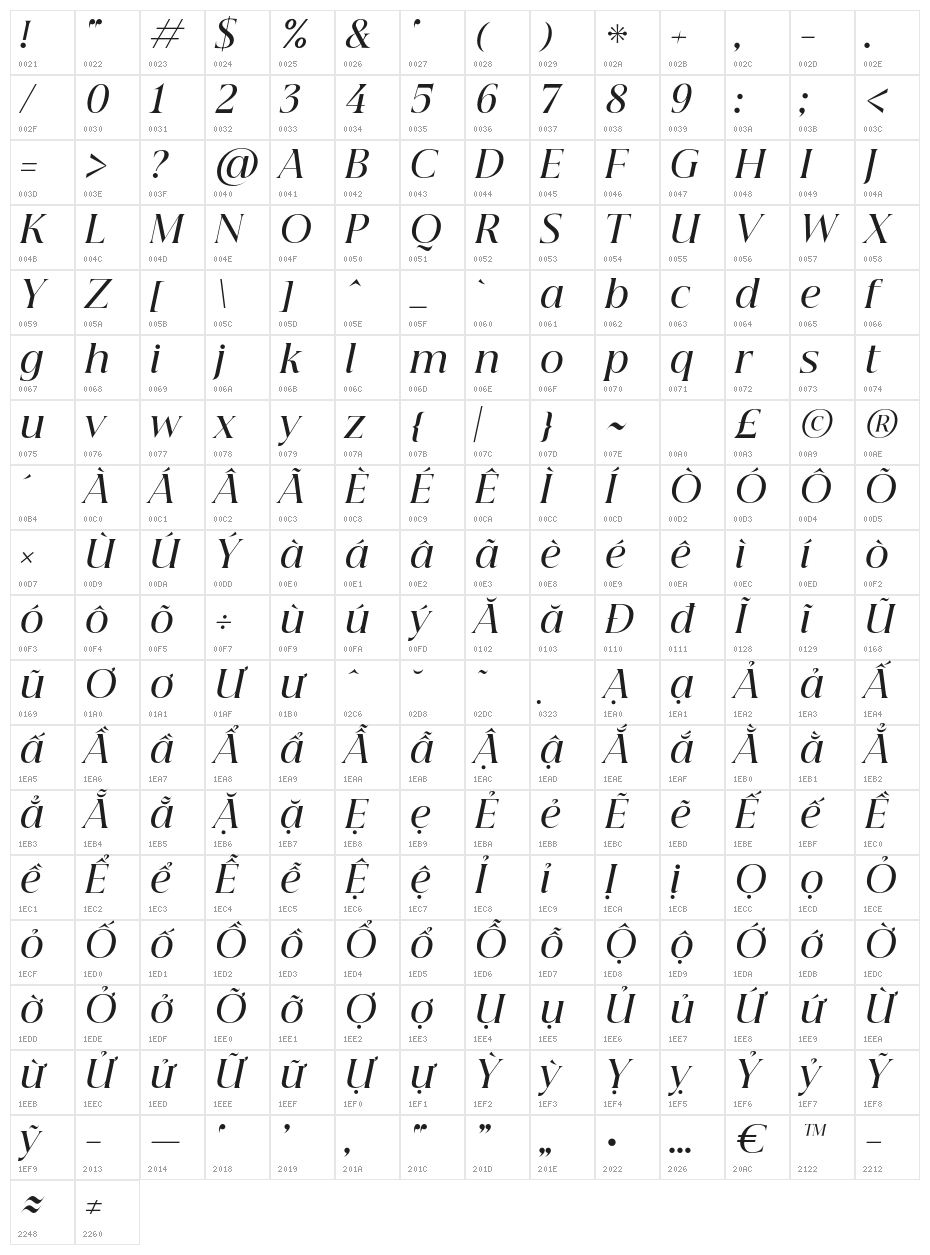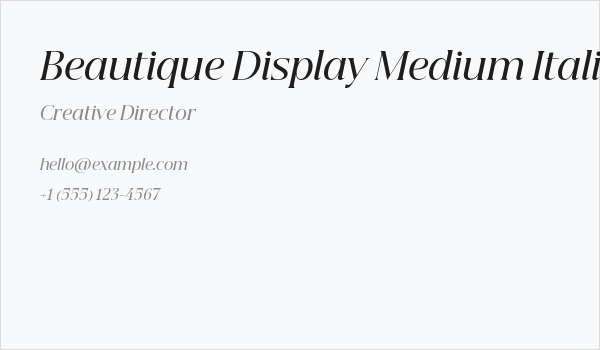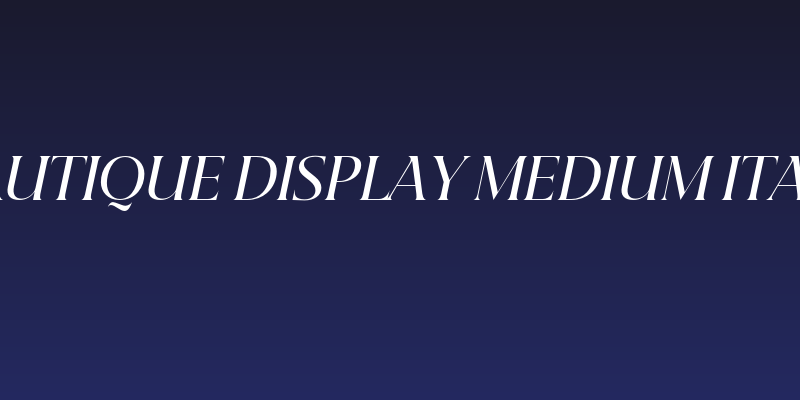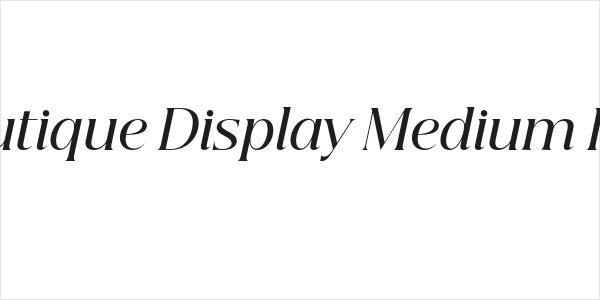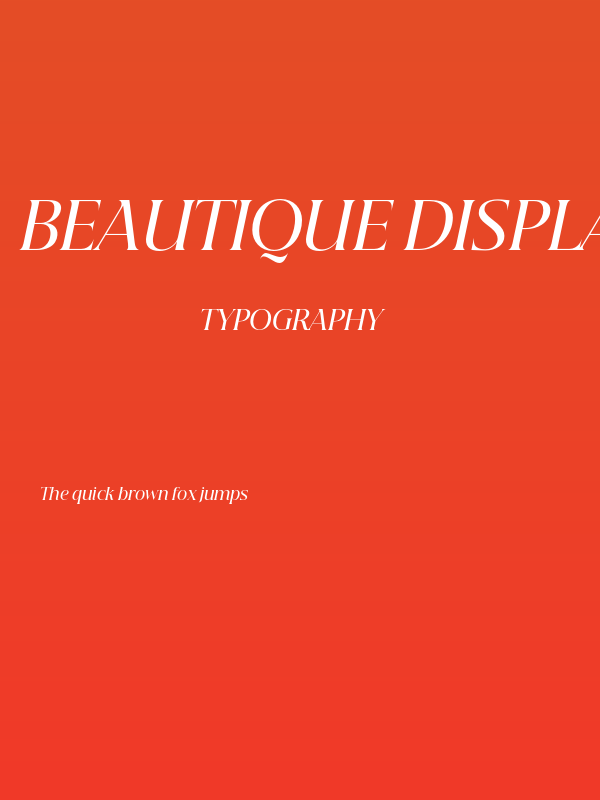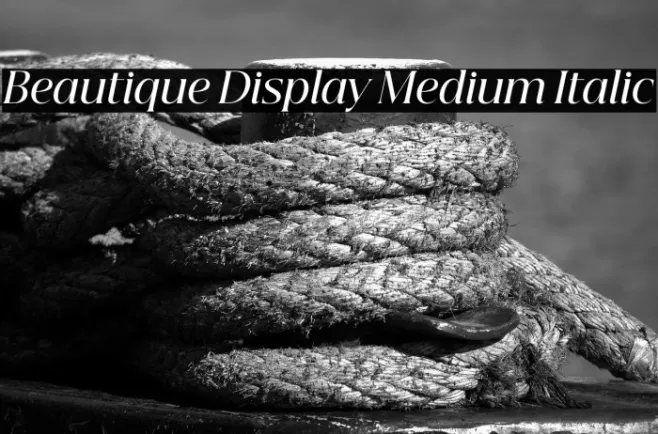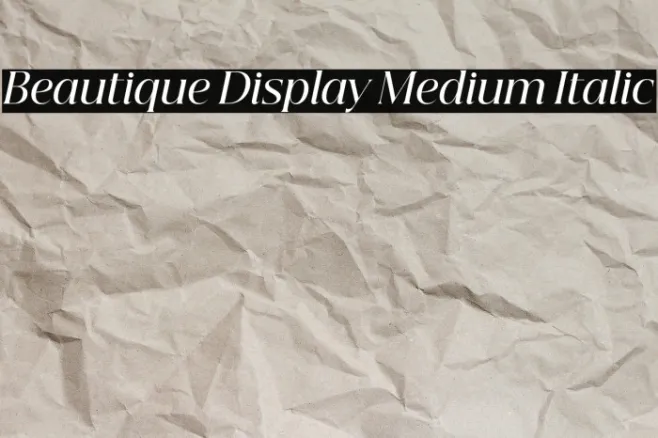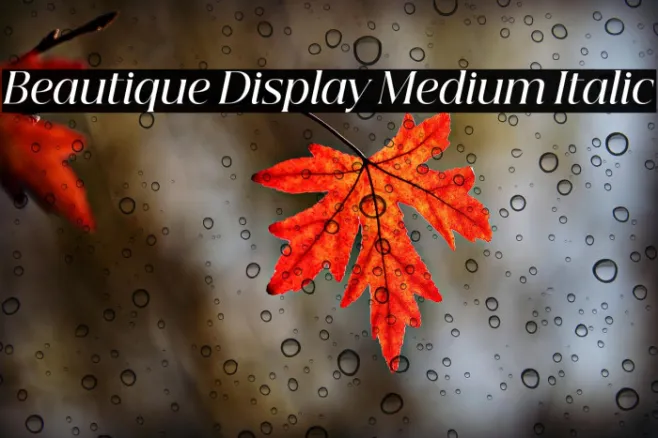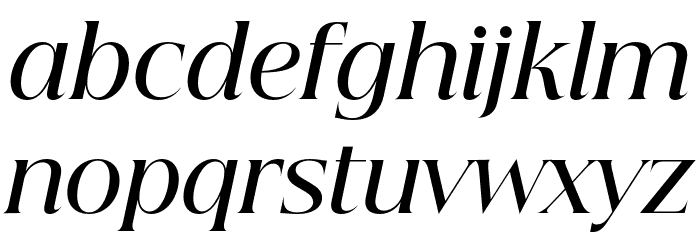
Beautique Display Medium Italic Font
Beautique Display Medium Italic Description
This elegant typeface features a sophisticated italic style with smooth, flowing lines that create a sense of movement and grace. The characters are well-balanced with a medium weight, offering a refined appearance suitable for upscale design projects. The font showcases a high contrast between thick and thin strokes, adding to its classic and timeless appeal. The letterforms are slightly condensed, providing a compact yet stylish look. The overall design is modern with a touch of vintage charm, making it versatile for various applications.
| Width | Condensed |
| Use Case | Logos, Headlines, Editorial design |
| Proposed Projects | Ideal for luxury branding, wedding invitations, editorial design, and high-end product packaging. |